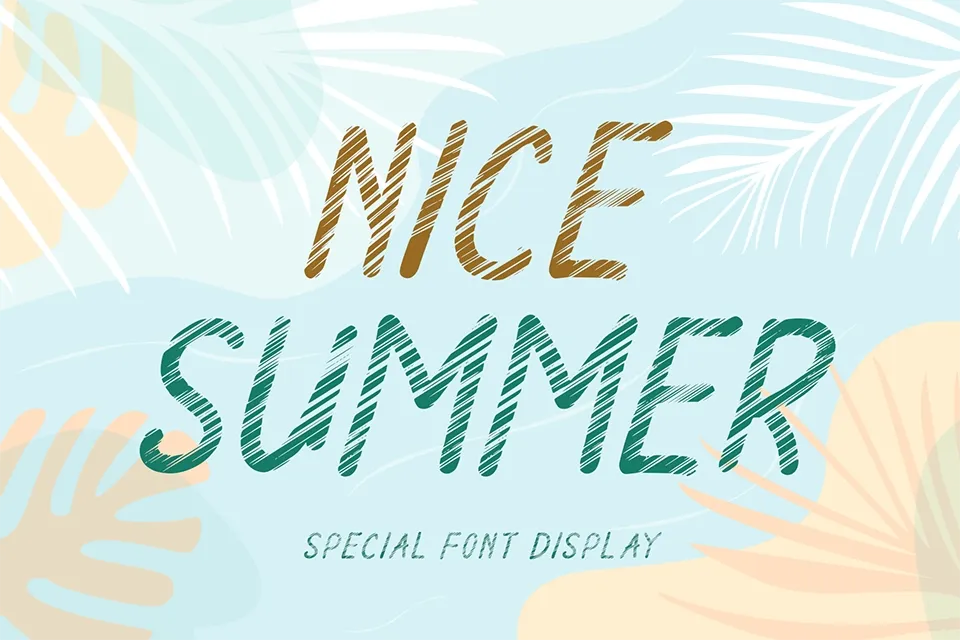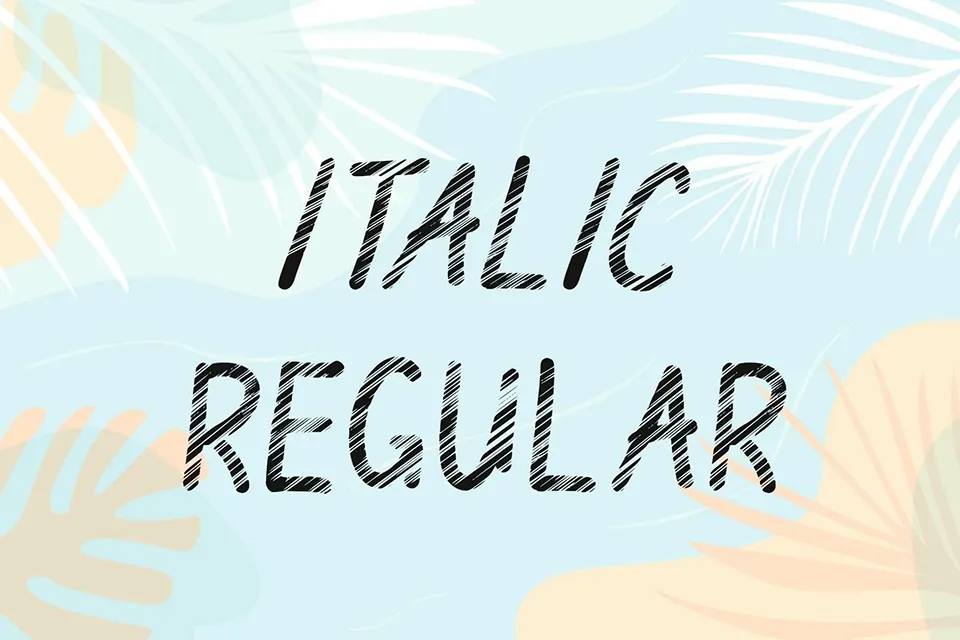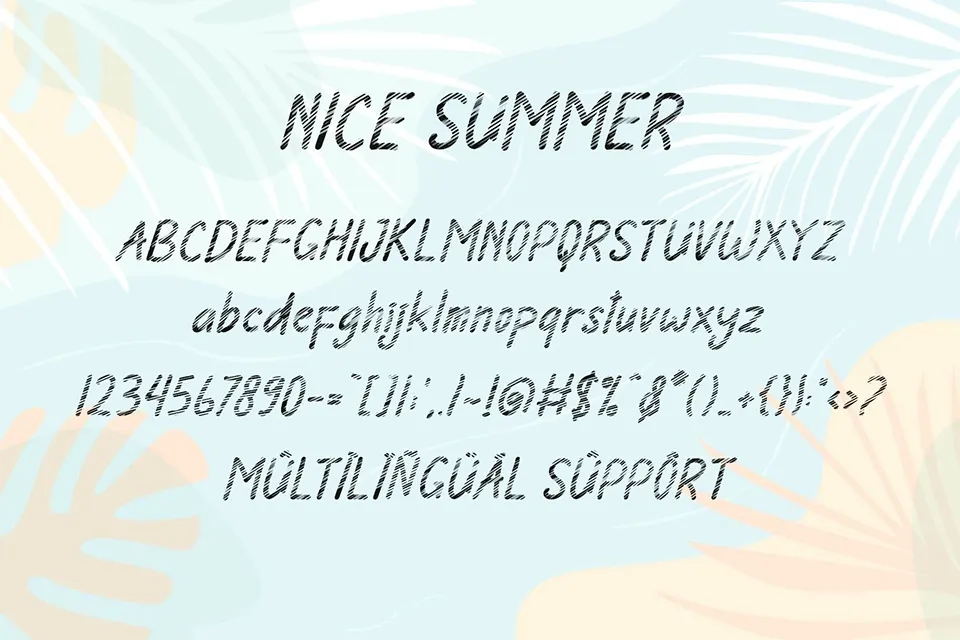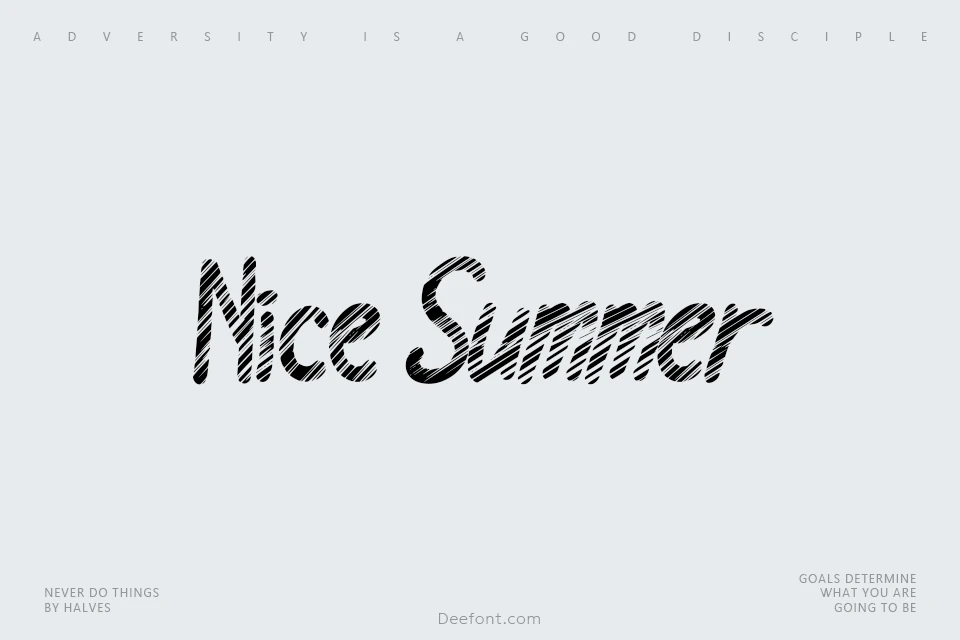
Nice Summer Font
Nice Summer Font is a vibrant and playful display typeface designed to capture the carefree and cheerful essence of summer. With its textured, hand-drawn style, this font brings a refreshing and lively touch to your creative projects. Perfect for posters, invitations, social media graphics, or any tropical-themed designs, Nice Summer Font adds a sense of fun and warmth. Its bold yet casual letterforms make it highly readable while maintaining a unique and artistic flair. Whether you’re designing for beach parties, travel promotions, or seasonal events, Nice Summer Font is the perfect choice to evoke sunny vibes and joyful energy.